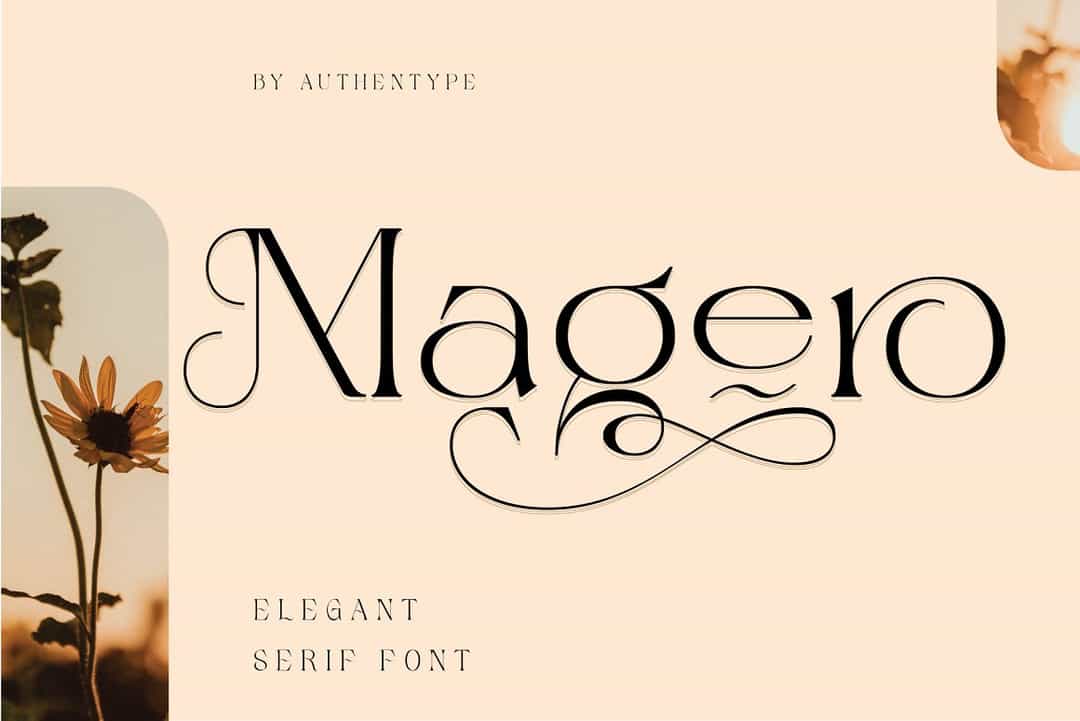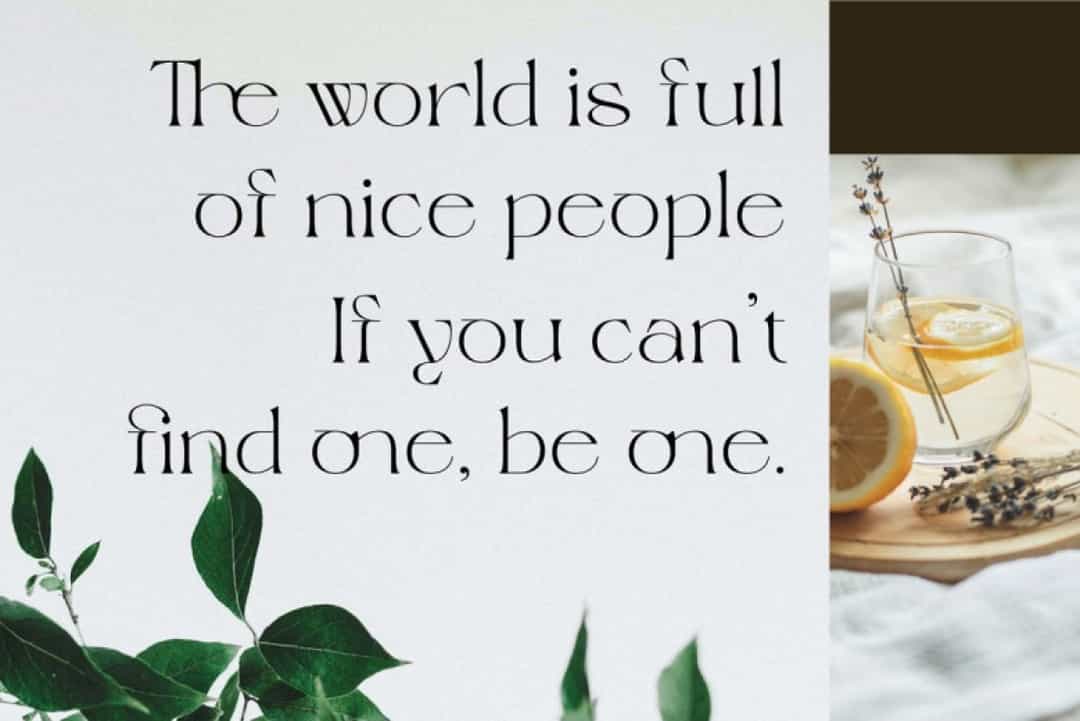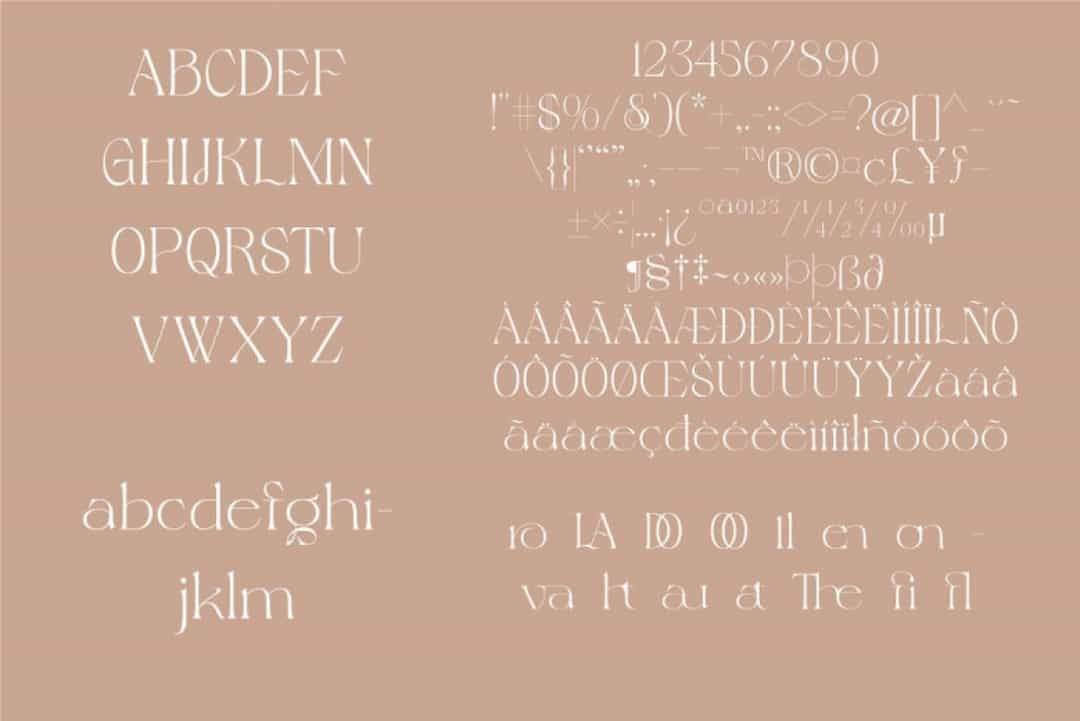
Magero Beautiful Serif font features a wide array of ligatures which give each word its unique shape, as well as a striking, contrasted and clear swash, making it ideal for posters, logos and other forms of promotional materials.